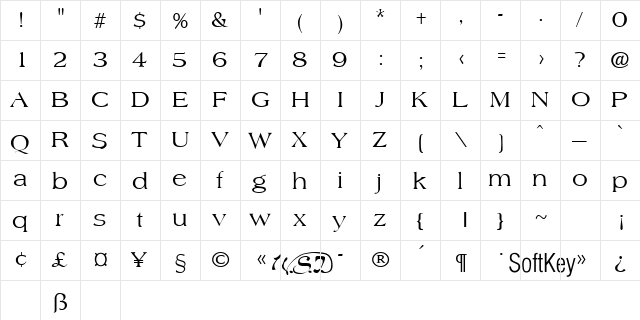
Americo Regular Font Preview
Americo Regular
Americo Regular Font Details
Design Context for Americo Typeface
Americo takes a measured approach to typography — its balanced proportions and neutral character make it a reliable workhorse for both digital and print work.